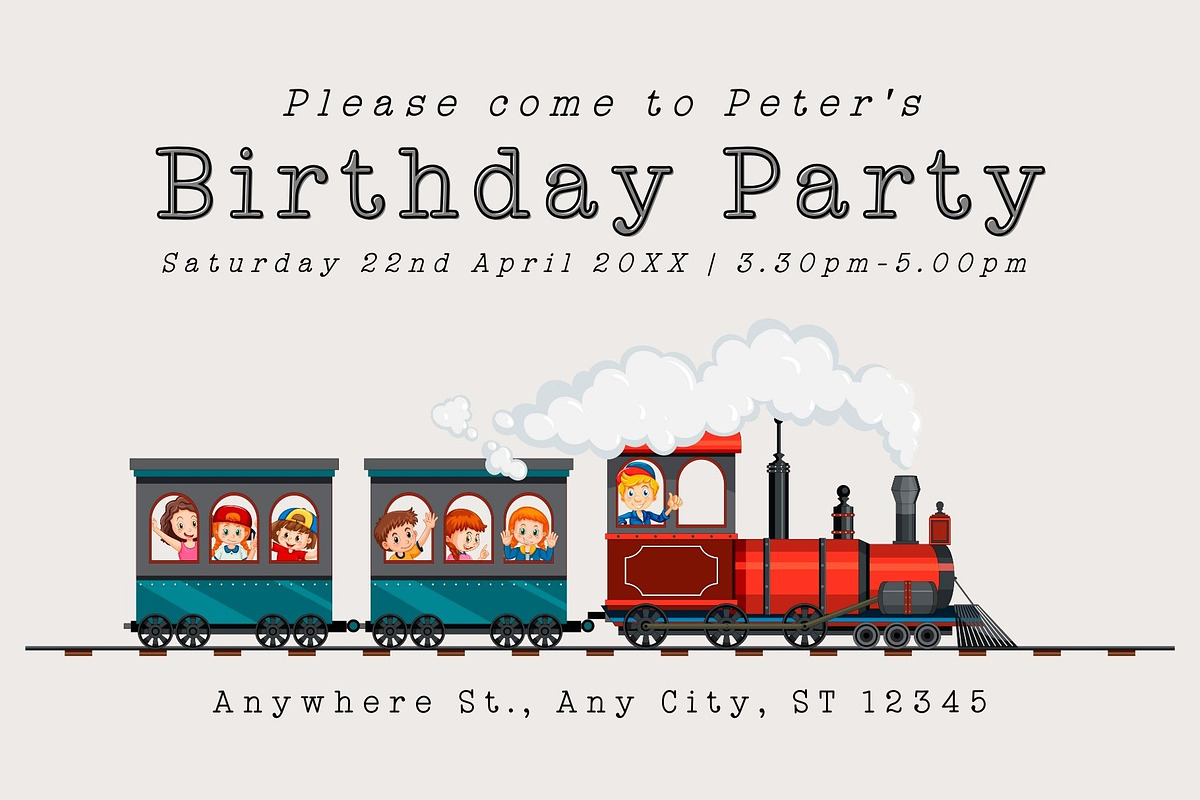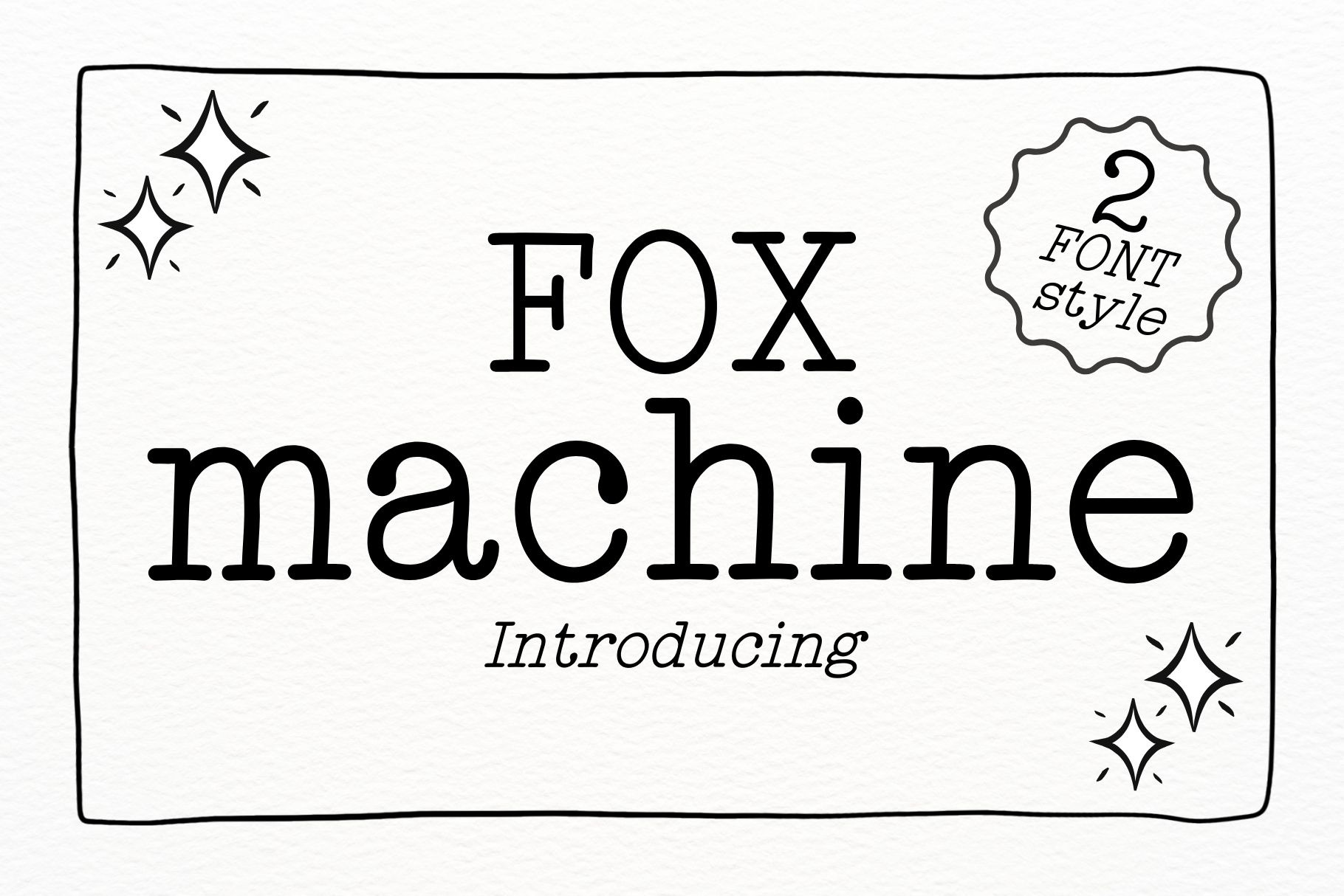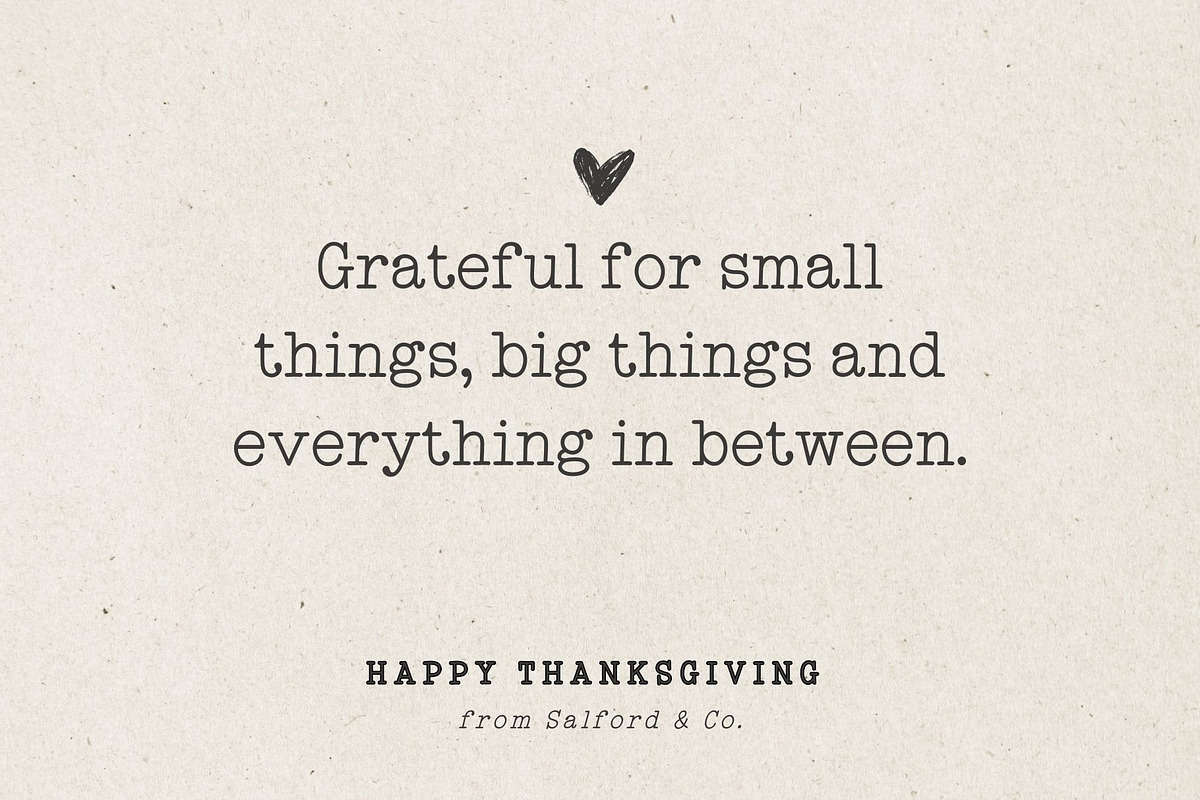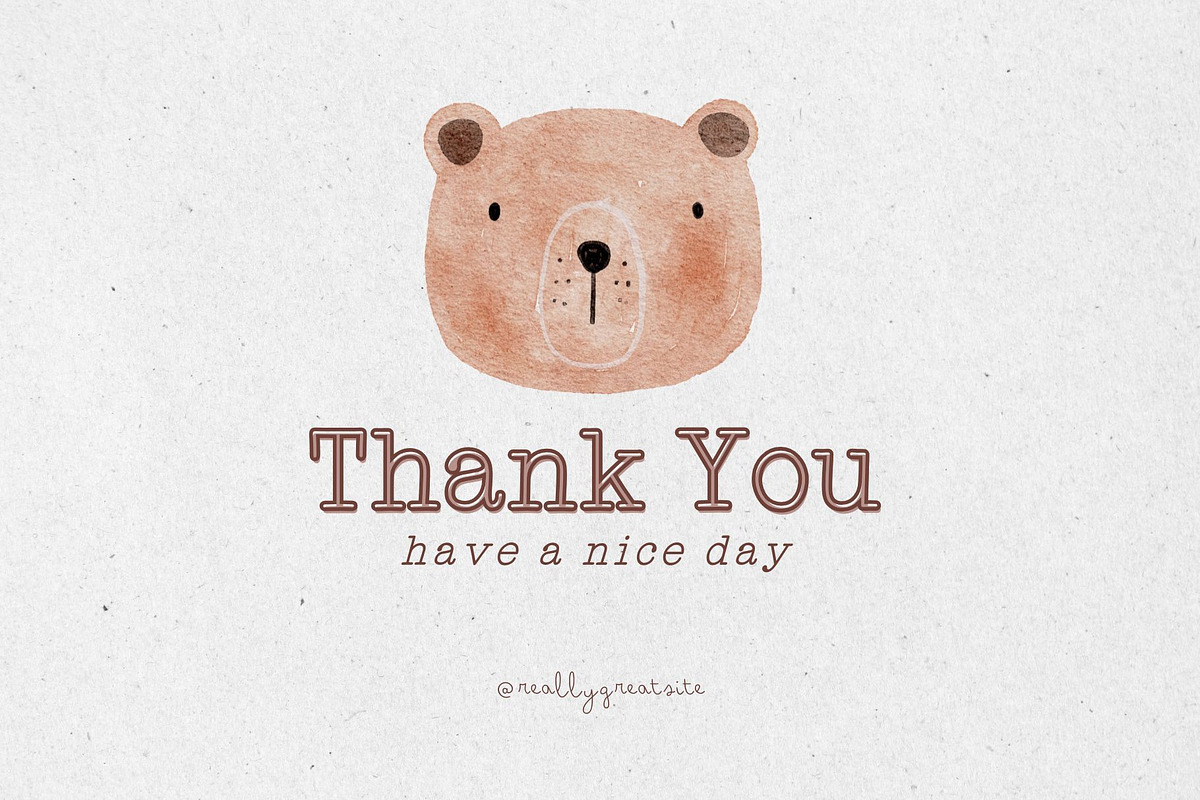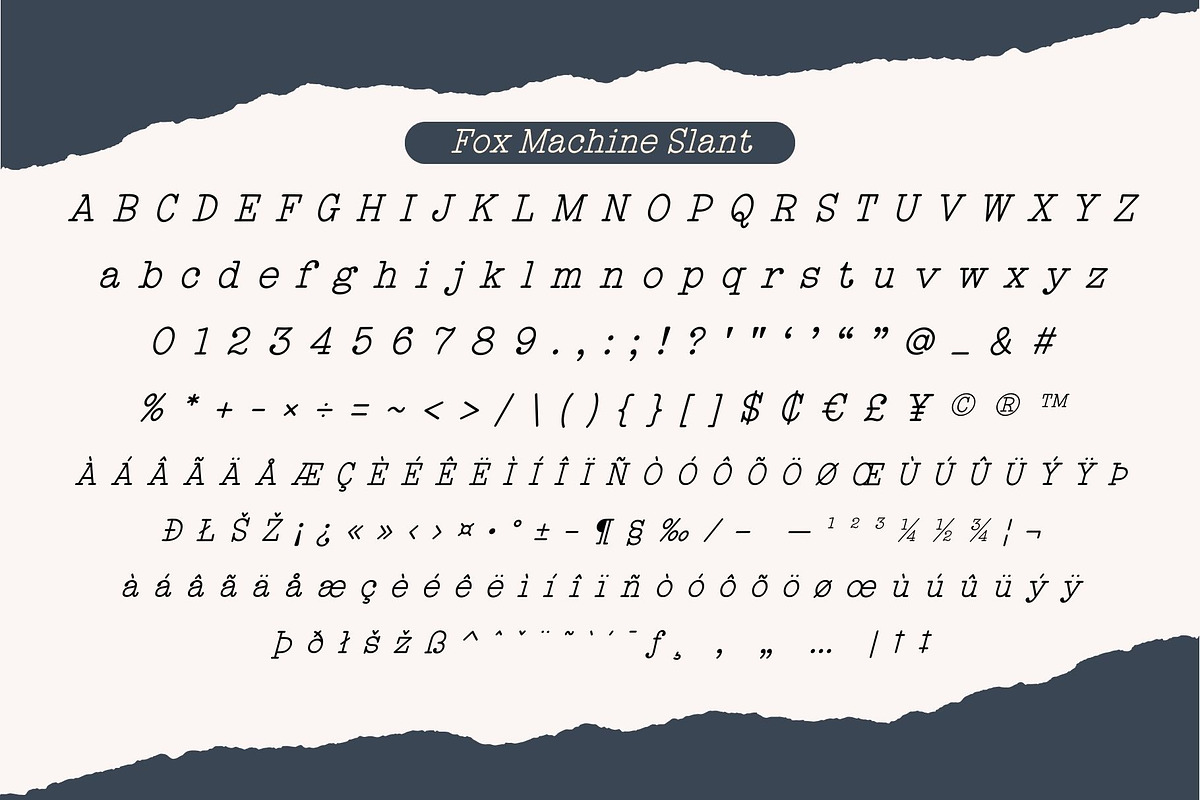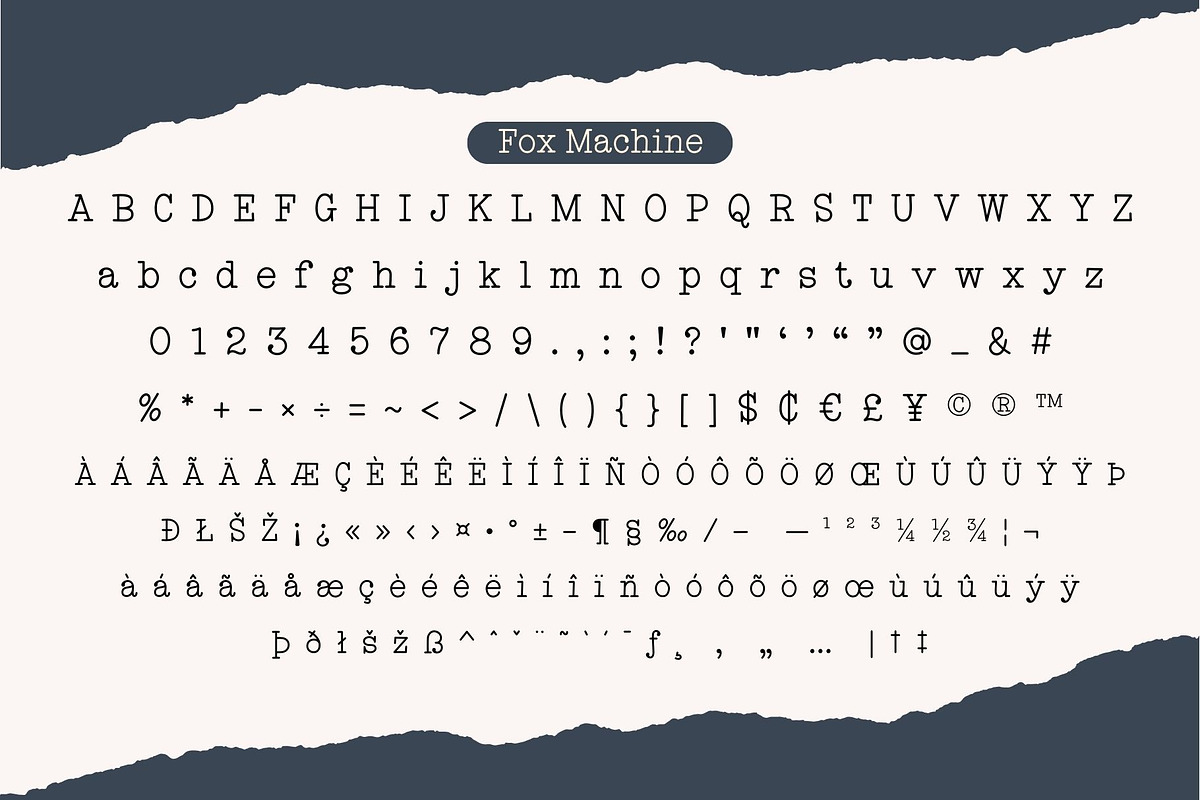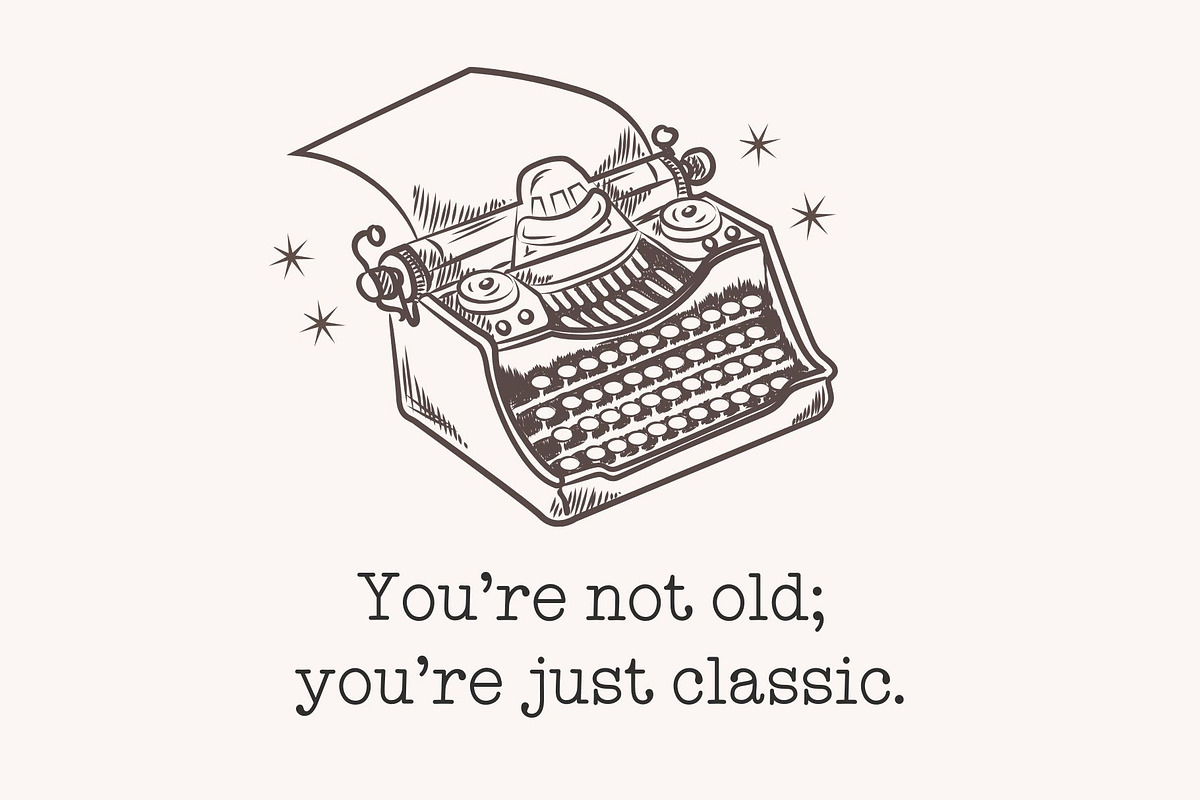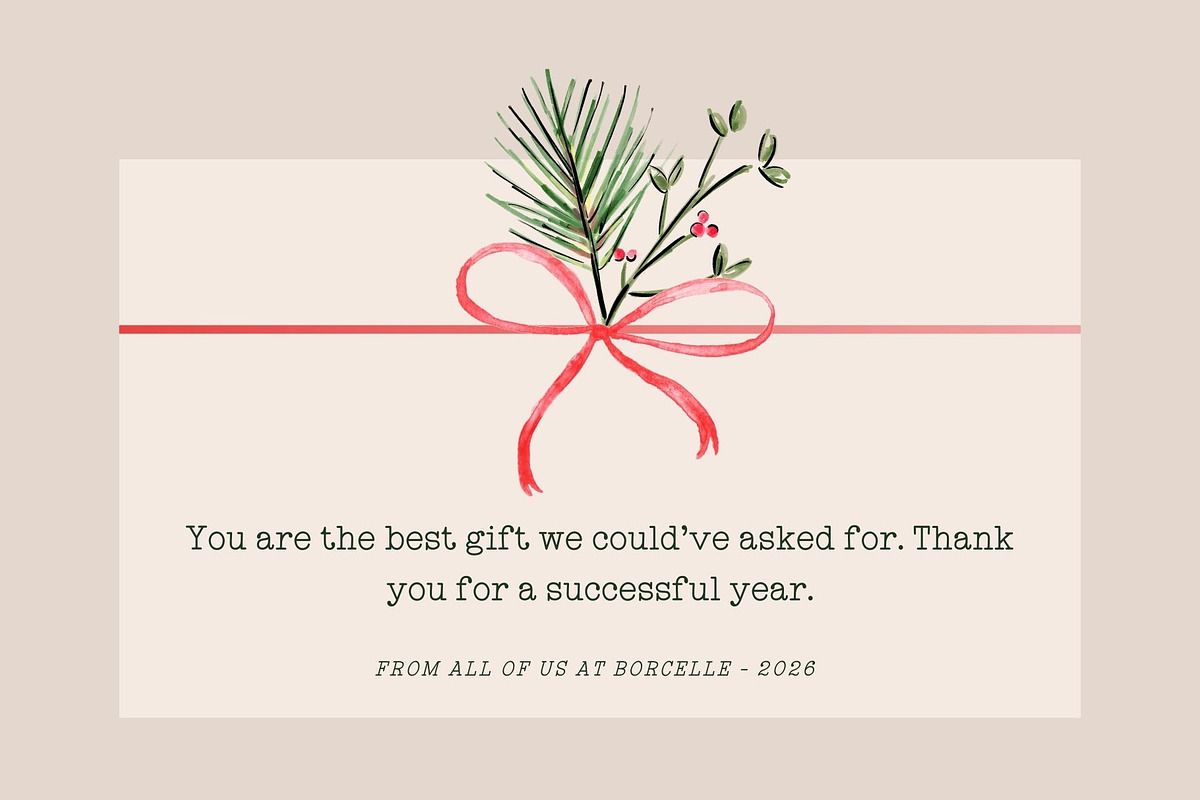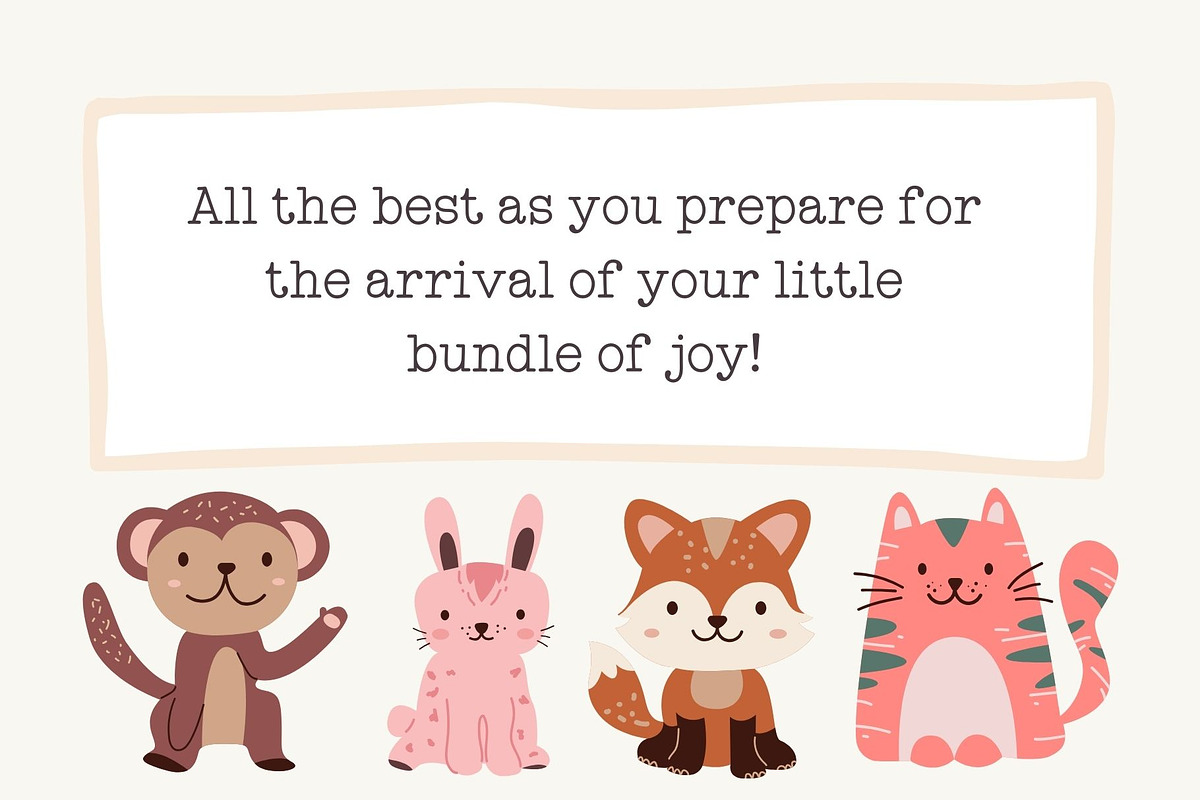
Fox Machine Font
Fox Machine is a stylish and playful slab serif font with a touch of vintage charm. It comes in two distinct styles: Regular and Slant, allowing for versatile design applications. The bold yet soft letterforms give it a friendly yet strong character, making it perfect for branding, headlines, posters, logos, and editorial designs.
With its typewriter-inspired look and smooth curves, Fox Machine strikes a balance between classic and modern aesthetics, making it a great choice for both nostalgic and contemporary projects. Whether you're aiming for a retro vibe or a clean, structured layout, Fox Machine adapts beautifully to your creative vision.